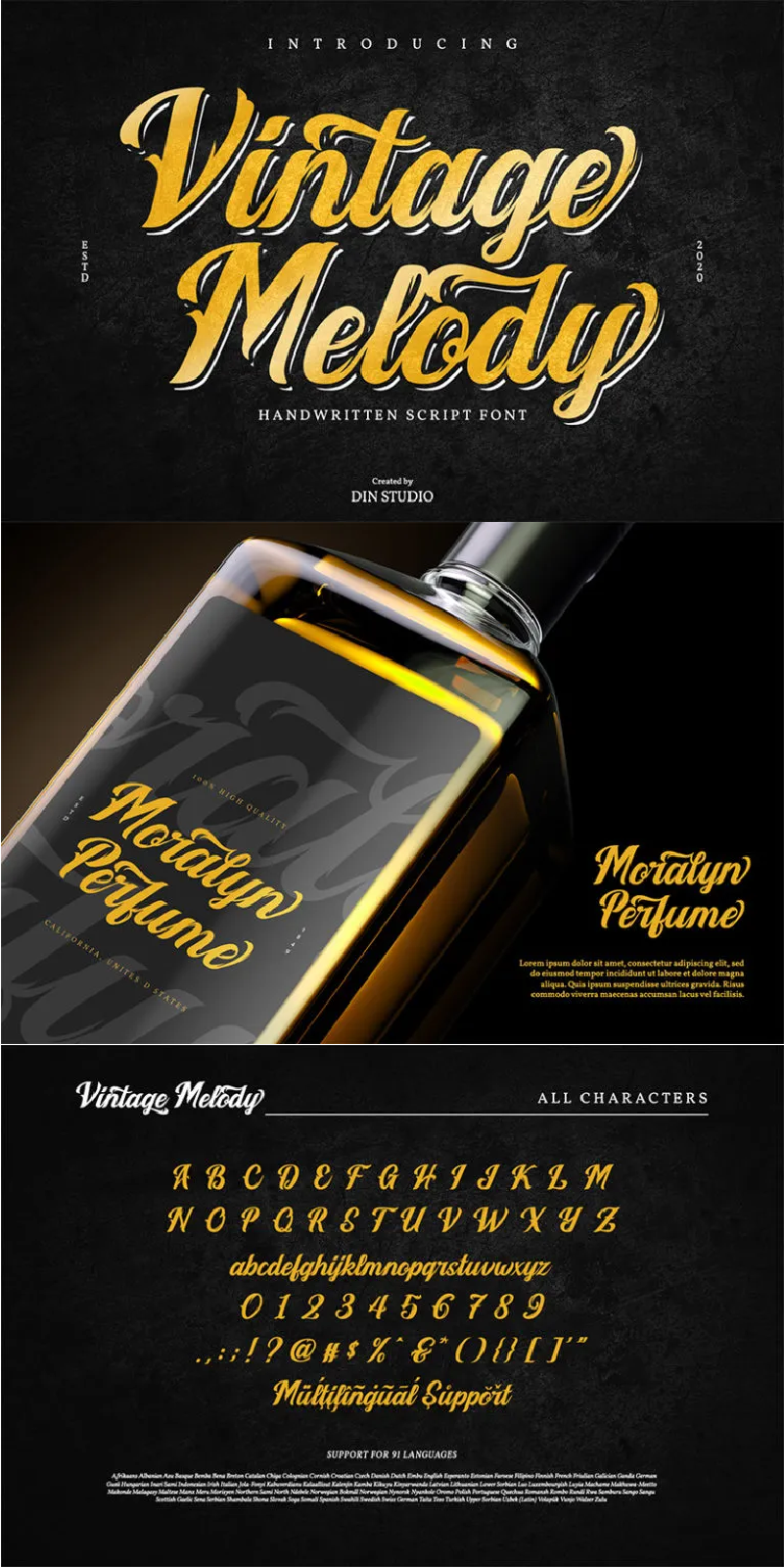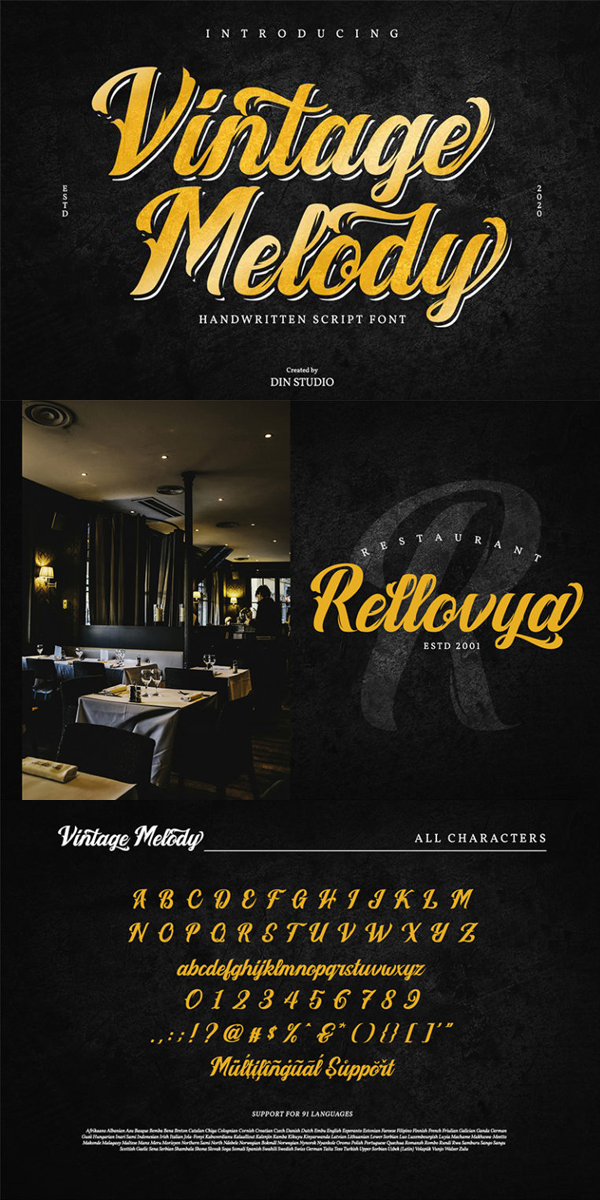
Vintage Melody Font
About Vintage Melody
Vintage Melody font, an elegant handwritten font showing a beautifully attractive typeface made for any professional project brandings. It is best applied for logos, brandings, weddings, and quotes. See the previews above to get some inspiration on how you can use them. Happy Designing!
-Standard Ligatures
Afrikaans, Albanian, Asu, Basque, Bemba, Bena, Breton, Catalan, Chiga, Colognian, Cornish, Croatia, Czech, Danish, Dutch, Embu, English, Esperanto, Estonian, Faroese, Filipino, Finnish, French, Friulian, Galician, Ganda, German, Gusii, Hungarian, Inari Sami, Indonesian, Irish, Italian, Jola-Fonyi, Kabuverdianu. Kalaallisut, Kalenjin, Kamba, Kikuyu, Kinyarwanda, Latvian, Lithuanian, Lower Sorbian, Luo, Luxembourgish, Luyia, Machame, Makhuwa-Meetto, Makonde, Malagasy, Maltese, Manx, Meru, Morisyen, Northern Sami, North Ndebele, Norwegian Bokmål, Norwegian Nynorsk, Nyankole, Oromo, Polish, Portuguese, Quechua, Romansh, Rombo, Rundi, Rwa, Samburu, Sango, Sangu, Scottish Gaelic, Sena, Serbian, Shambala, Shona, Slovak, Soga, Somali, Spanish, Swahili, Swedish, Swiss German, Taita, Teso, Turkish, Upper Sorbian, Uzbek (Latin), Volapük, Vunjo, Walser, Zulu